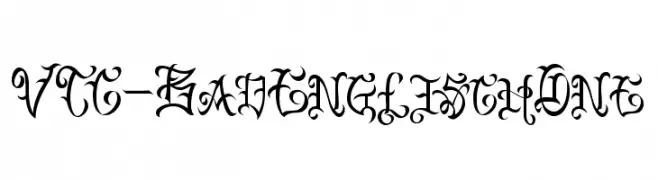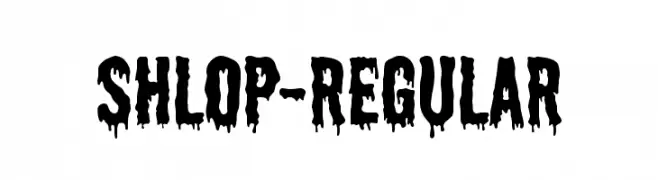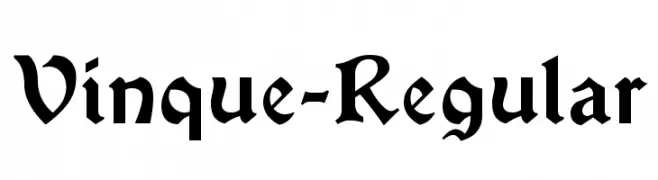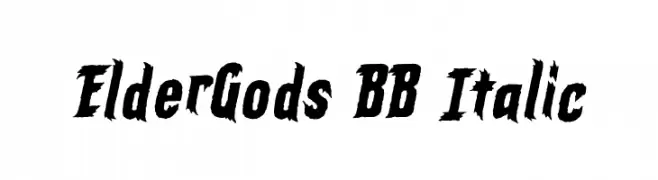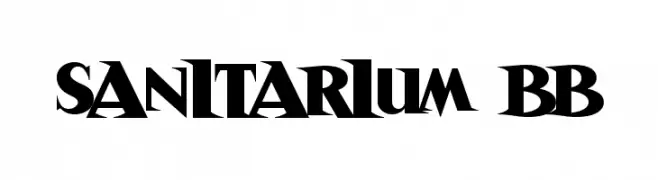
A bold, dripping font with a spooky, eerie aesthetic.
An expressive, calligraphic font with fluid strokes and dramatic flourishes.
A dramatic, Gothic-inspired font with sharp, angular lines and intricate detailing.
A bold, Gothic-inspired font with sharp, angular lines and dramatic serifs.
A bold, jagged, and italicized font with a distressed, edgy style.
A bold, high-contrast font with sharp serifs and dynamic character shapes.